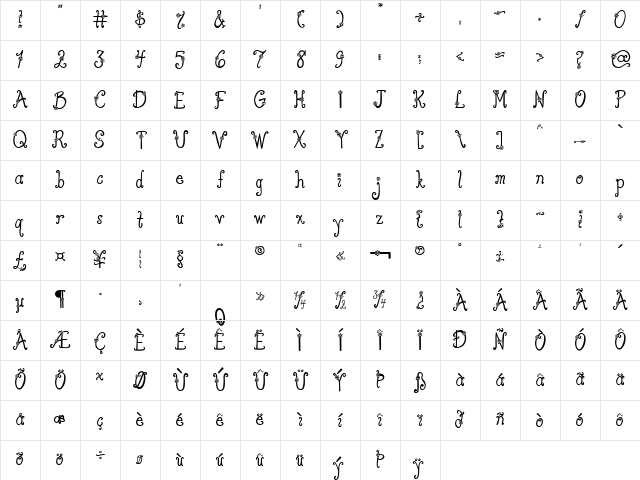
Complete Austie Bost You Wear Flowers S Regular glyph index. Displaying only characters natively supported by Austie Bost You Wear Flowers S Regular font.
Austie Bost You Wear Flowers S is a composed and adaptable typeface that performs quietly and consistently across a wide range of design contexts.